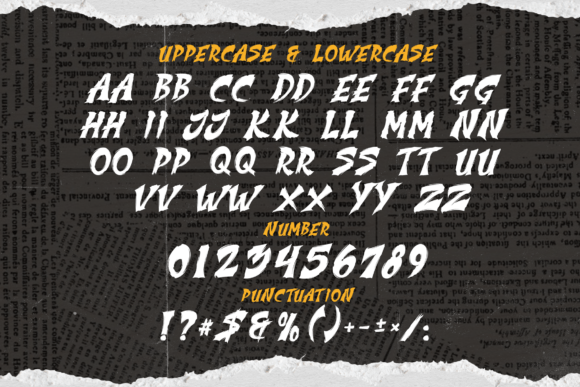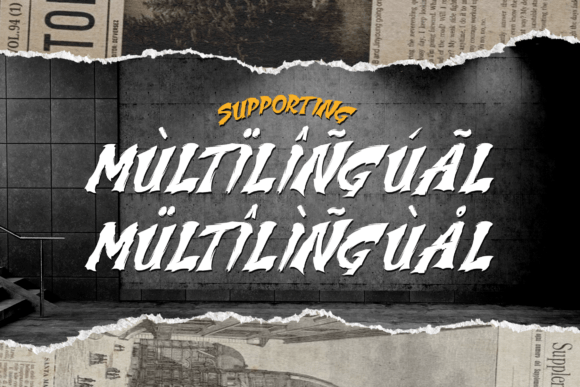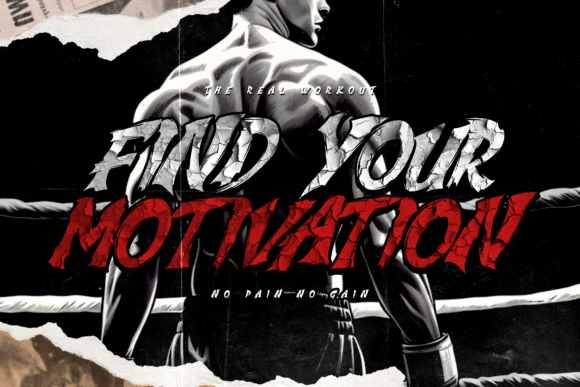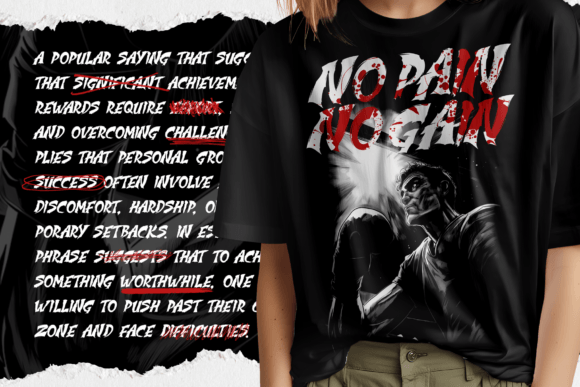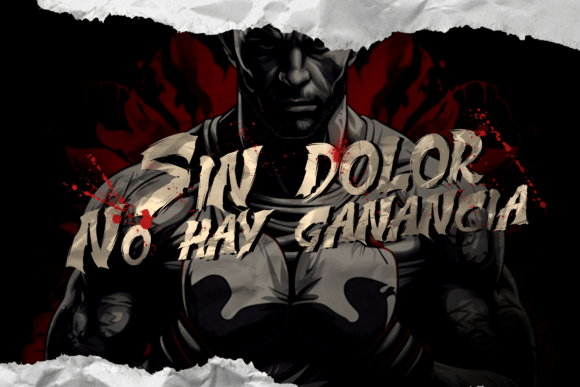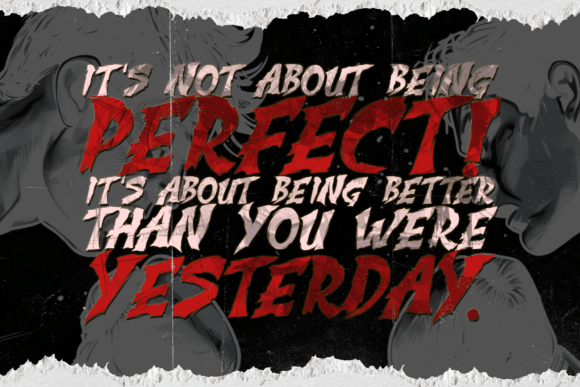
Introduction to Dragon Striker Font
Dragon Striker is a horror-themed marker with a Y2K-inspired brush design.
It features bold, striking details that evoke a sense of fear and mystery, combining a futuristic edge with classic horror elements Perfect for adding intense, dramatic effects to your artwork.
Key Features of Dragon Striker Font